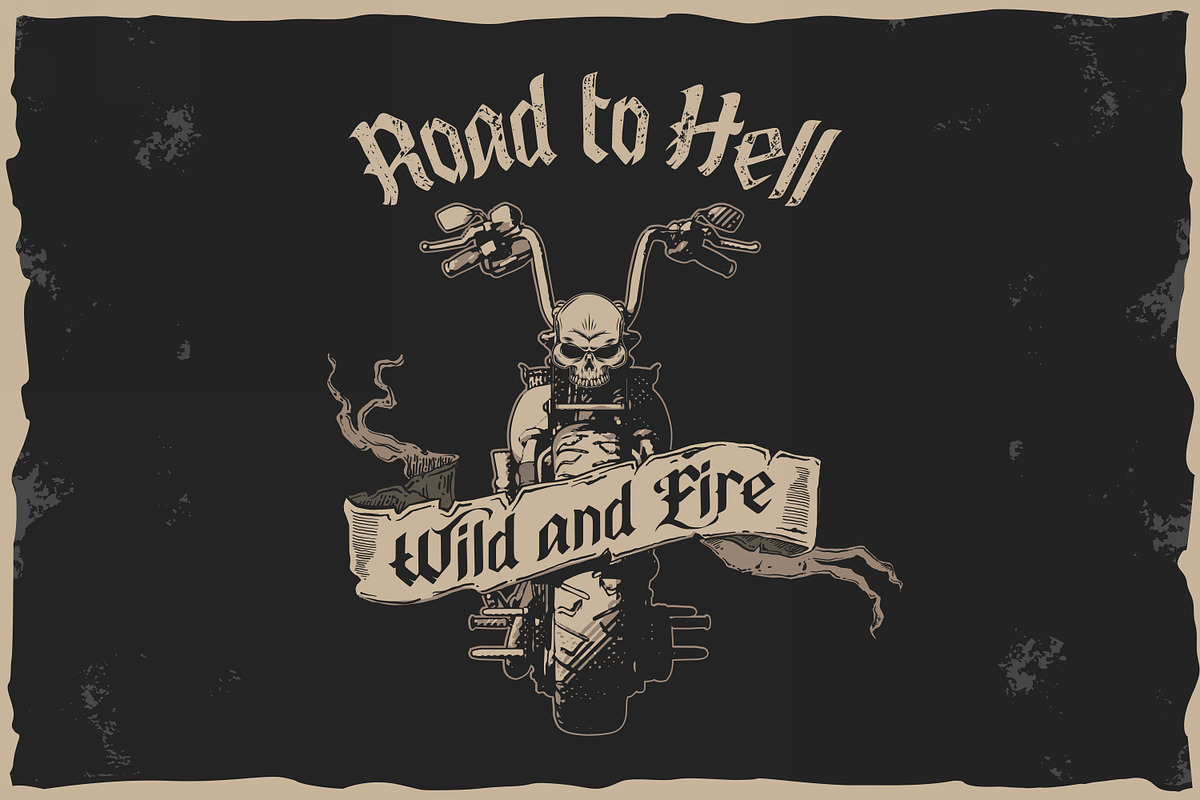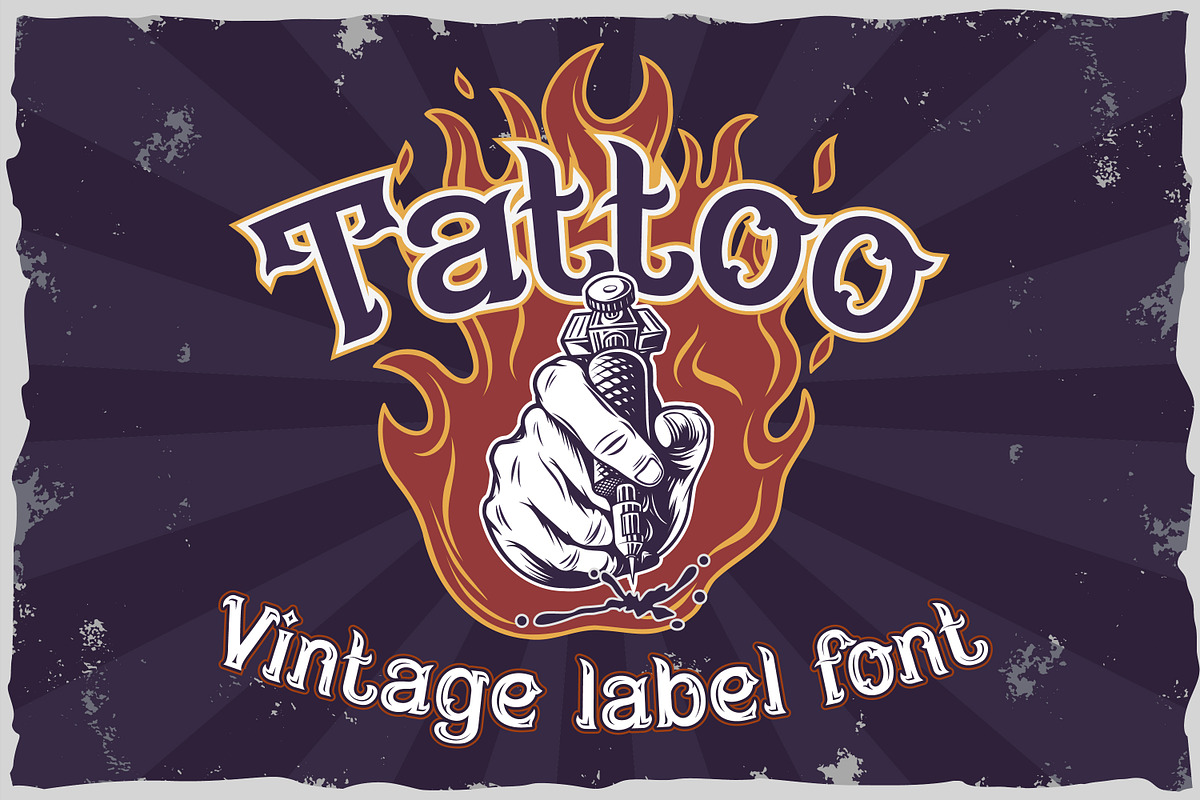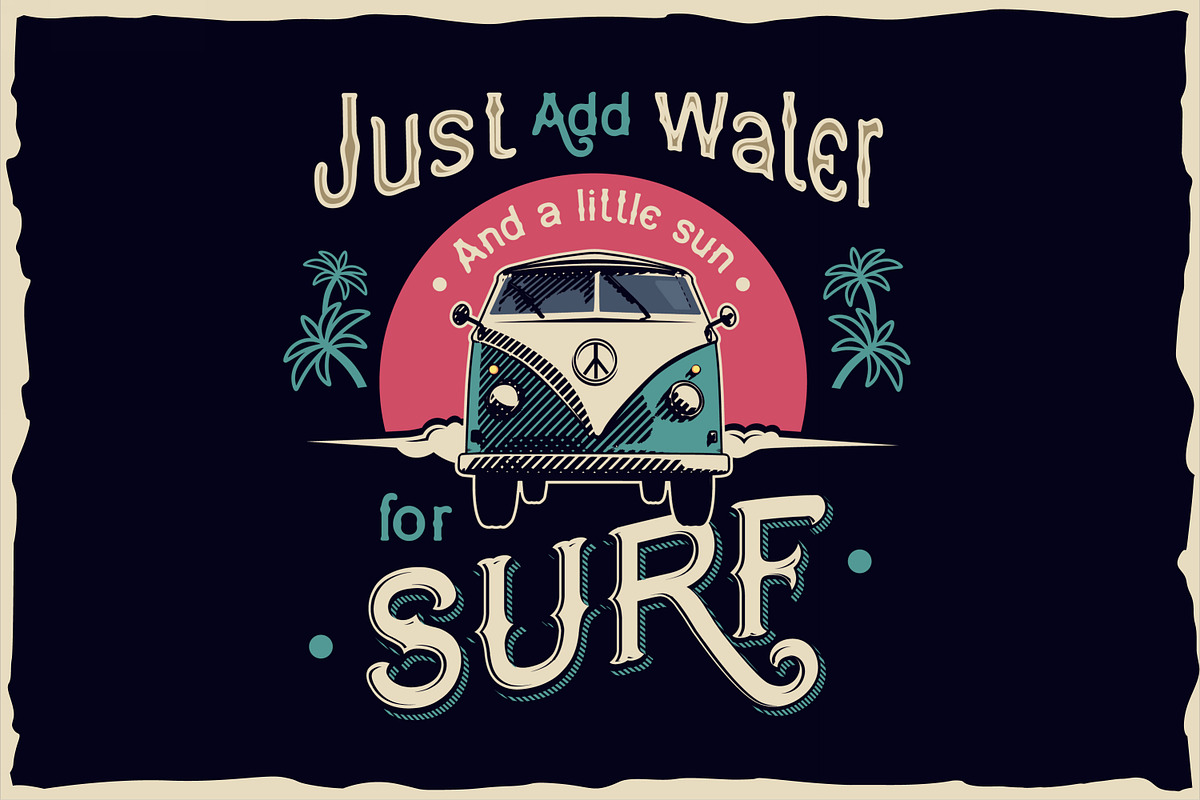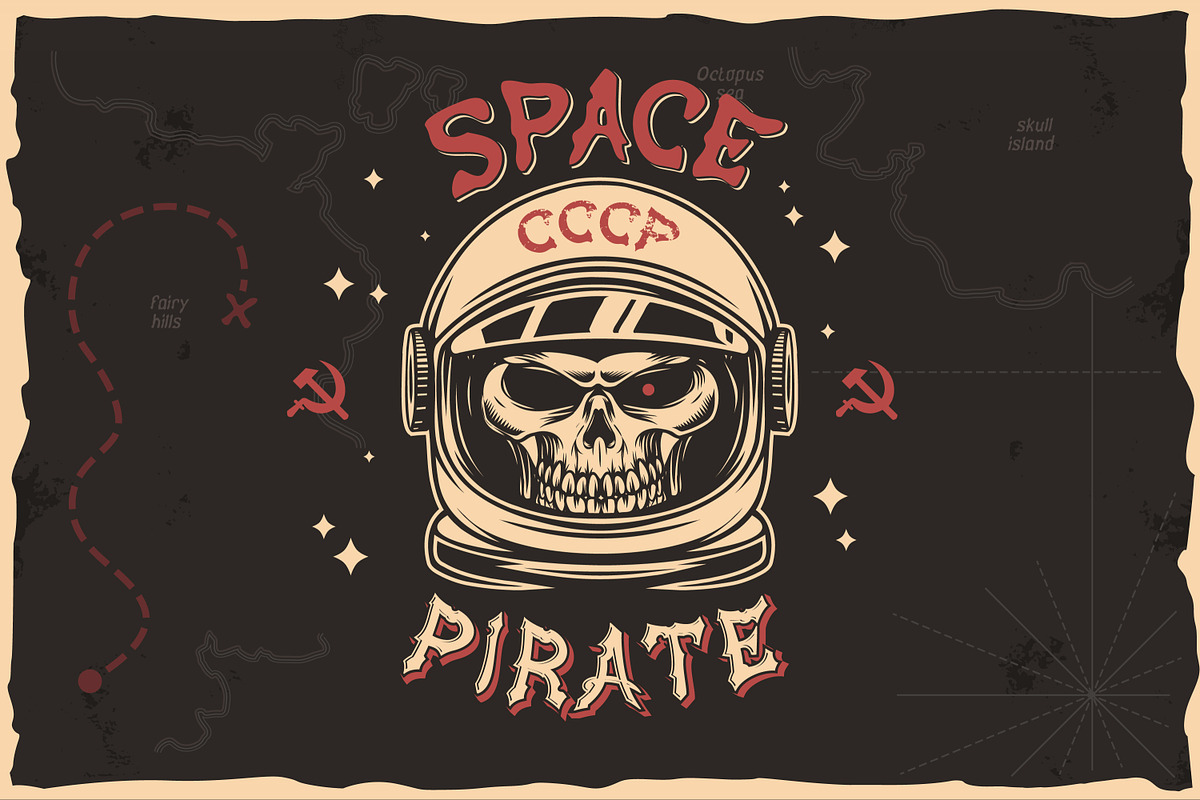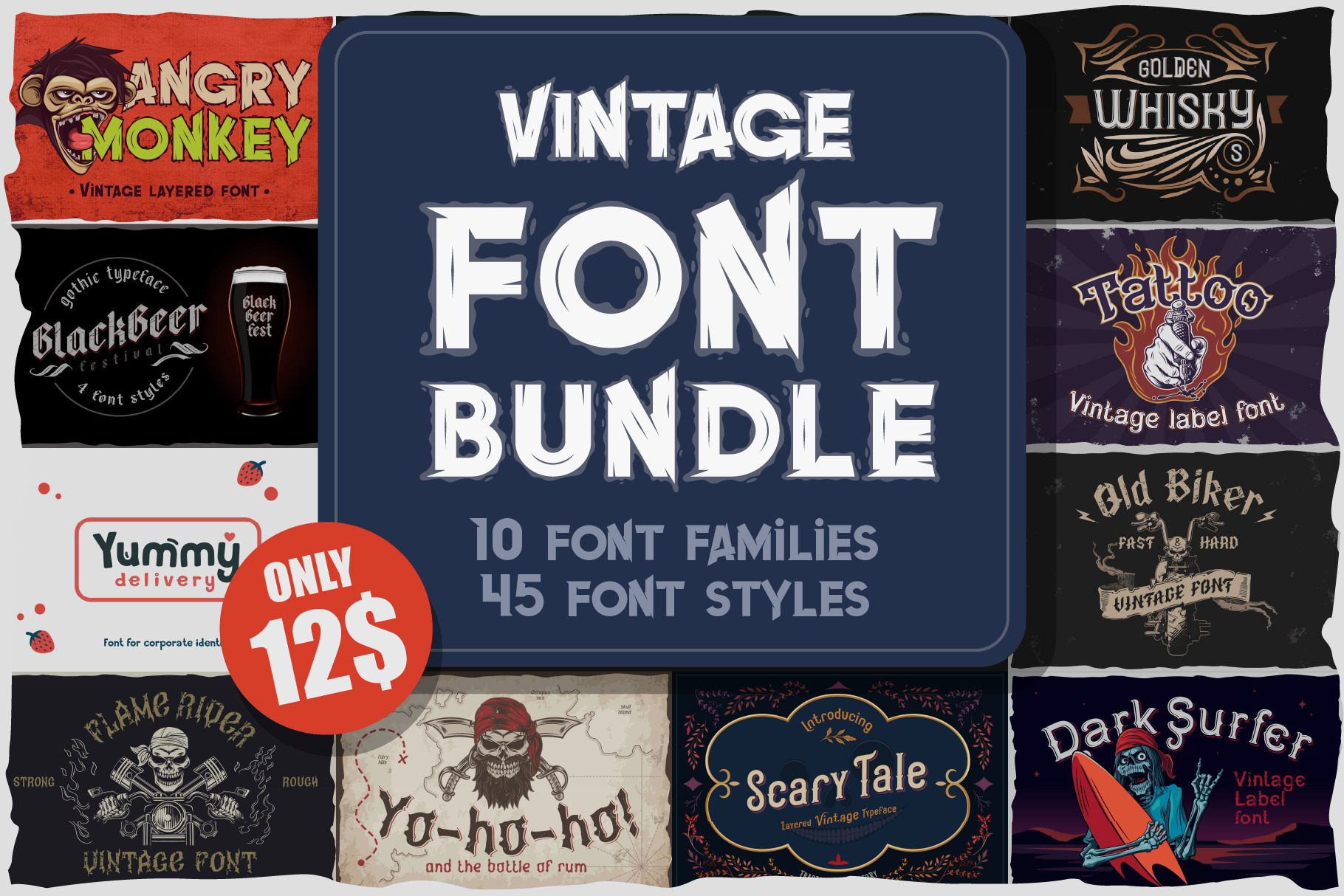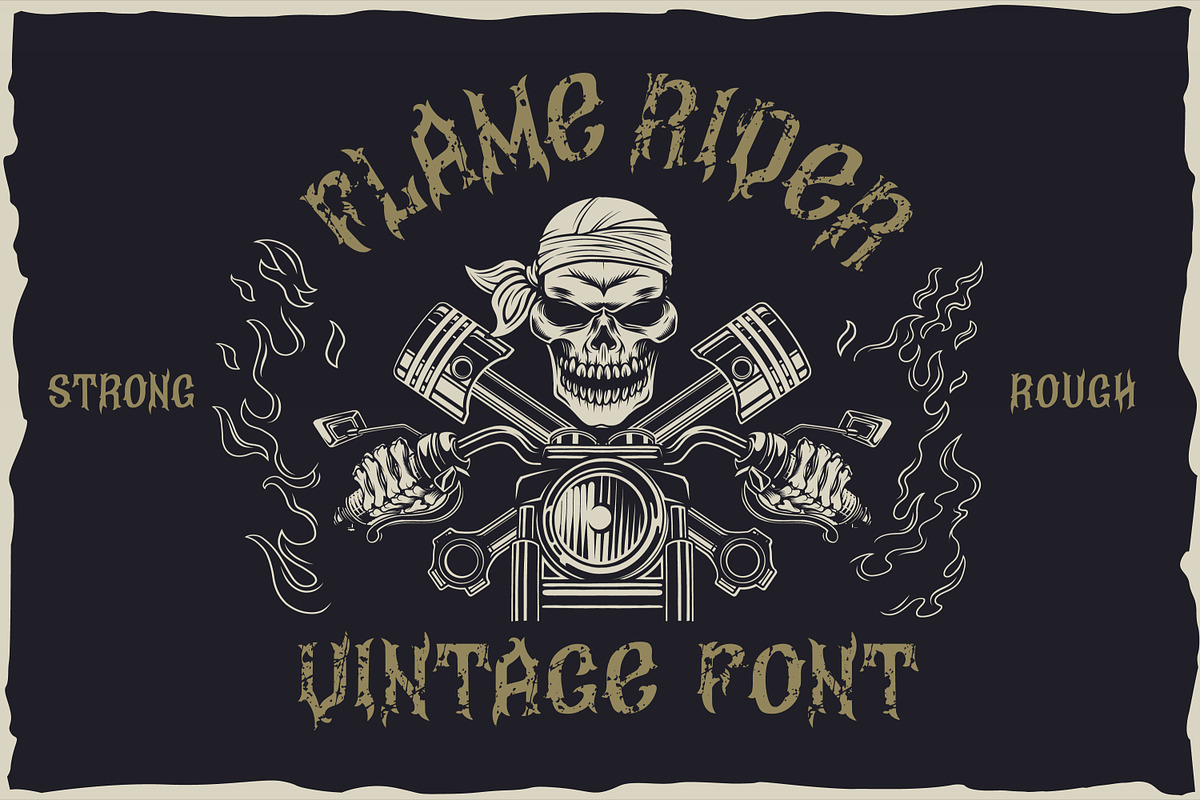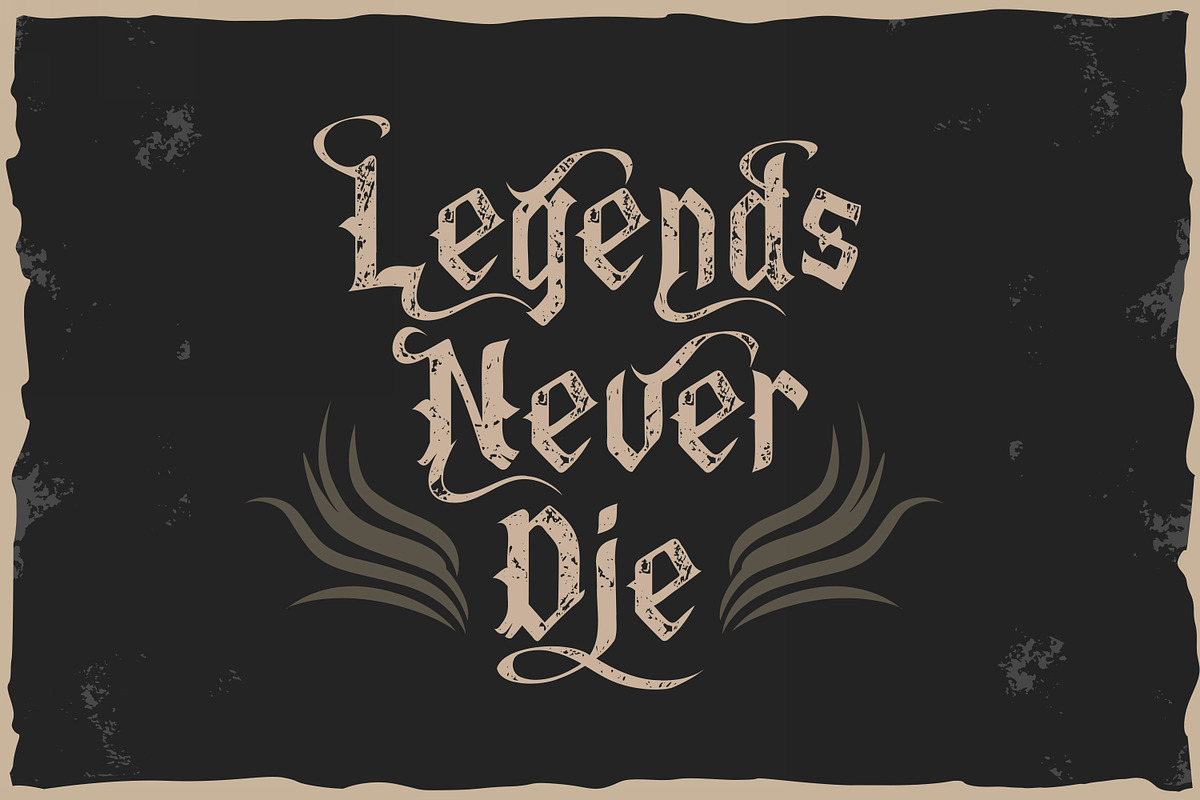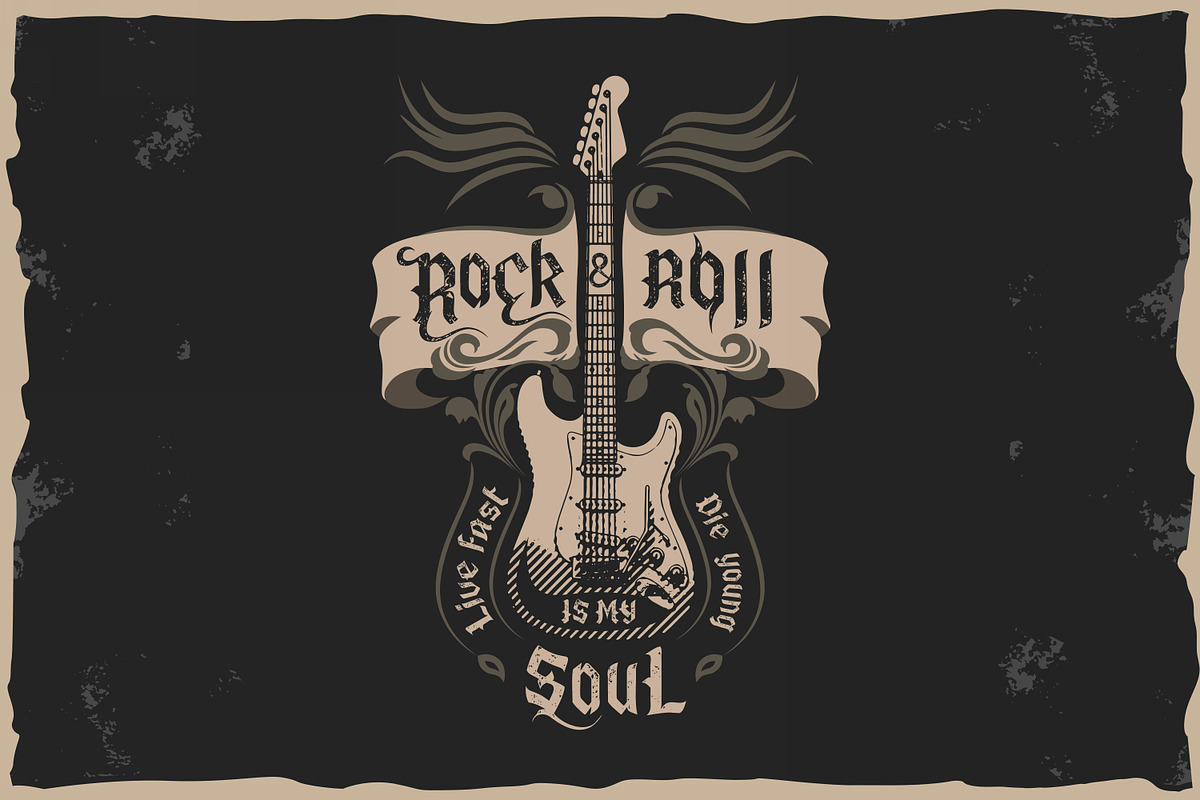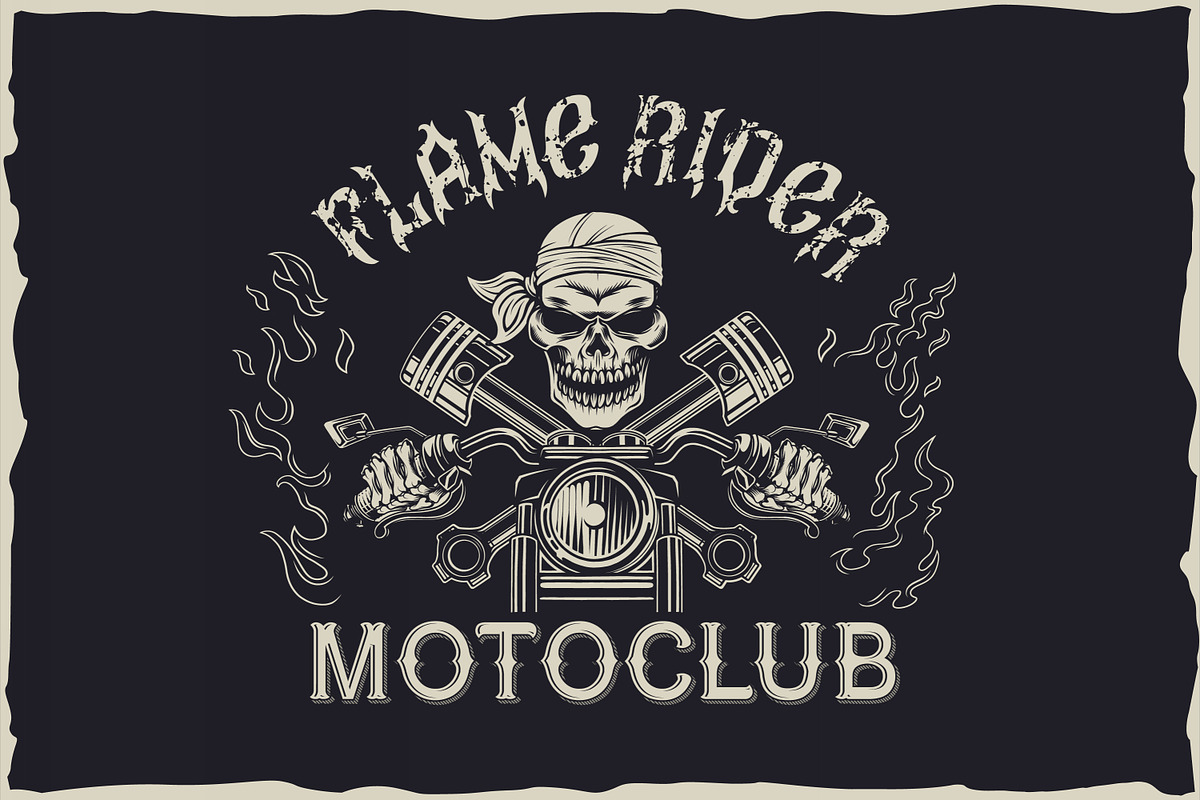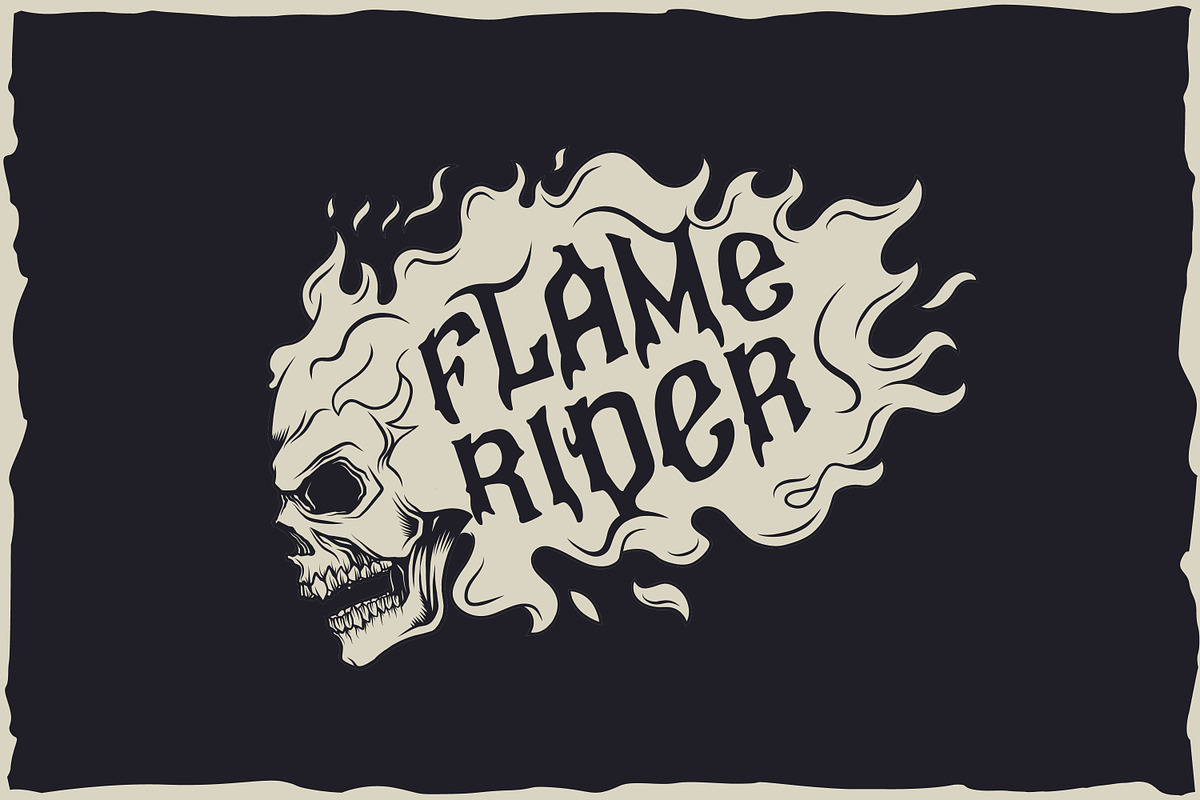
10 Vintage Font Families Bundle #3
A set of 10 vintage font families with accompanying graphics. Bundle includes 10 font families / 45 font styles, as well as all the bonus graphics for them. Emblems, T-shirt illustrations, frames and more.
Bundle set includes fonts:
- Angry Monkey
- Black Beer
- Yummy delivery
- Flame rider
- Yo-ho-ho
- Scary tale
- Dark surfer
- Old biker
- Tattoo
- Golden Whisky